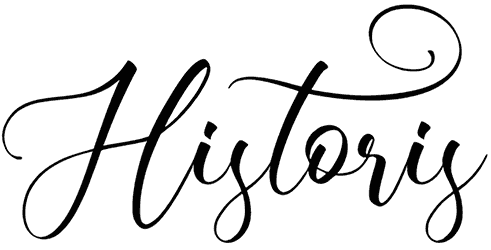
Historis Font
Who can ignore the beauty of classic hand-drawn text? Historis with its appealing and delicate letters designed with the swept style can receive a lot of admiration. Even without numbers, this calligraphy font is a ravishing choice for many layouts, namely business cards, posters, magazines, logos, and many more others like.
A modern and stylish handcrafted signature font that’ll make your audience swoon and enhance your projects. Every stroke and curve was created to capture the essence of modernity and style. This gorgeous and stylish font can be used for a host of different content needs and projects. Ideal for social media posts and ads, printed quotes, t-shirt designs, packaging, or even as a modern text overlay to any background image. Rellington Handwritten Font includes Multilingual Options to make your branding globally acceptable.
• Standard Ligatures
• Stylistic Sets